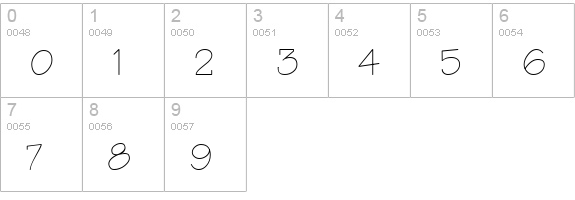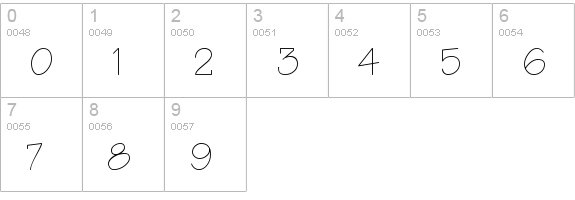
English-Russian Architect Font Details
Introducing the exquisite English-Russian Architect font, a harmonious blend of classic elegance and modern sophistication. This unique typeface exudes a sense of architectural grandeur, with its clean lines and graceful curves reminiscent of the intricate details found in stately buildings. The English-Russian Architect font is perfect for adding a touch of refined charm to your design projects, whether you're creating invitations, branding materials, or editorial layouts. What's more, this stunning font is available for free download at FontsMarket.com, making it easily accessible for designers and creatives looking to elevate their work with a touch of timeless beauty. Embrace the timeless appeal of the English-Russian Architect font and bring a touch of architectural flair to your designs today.